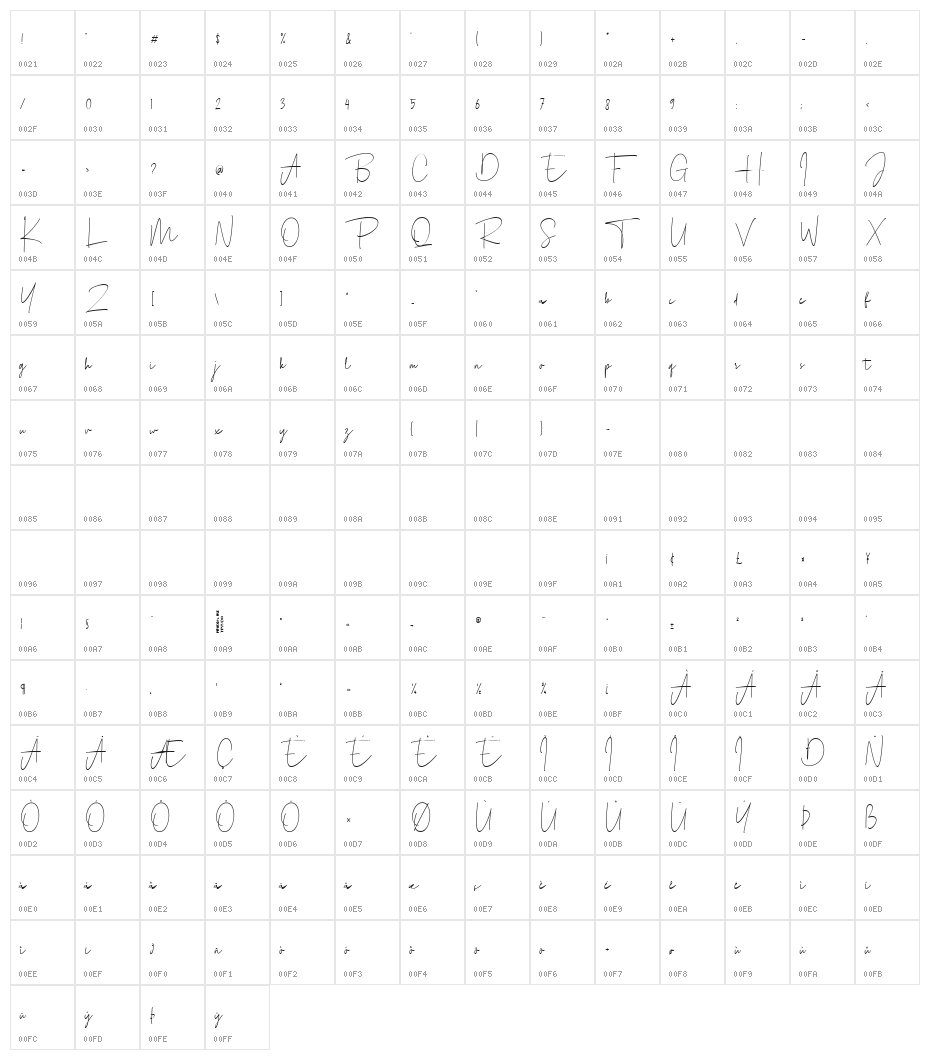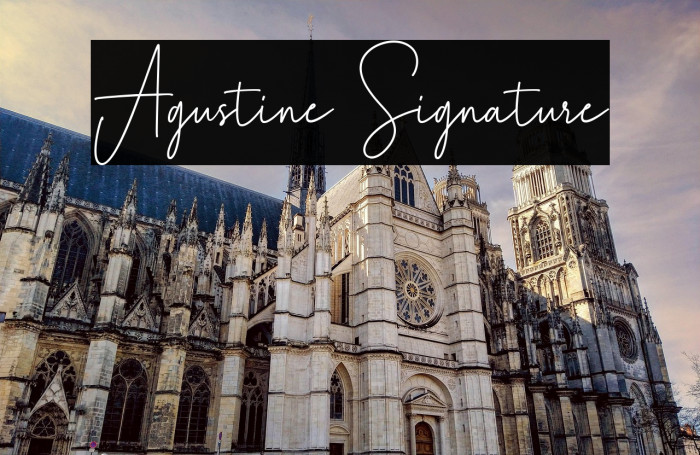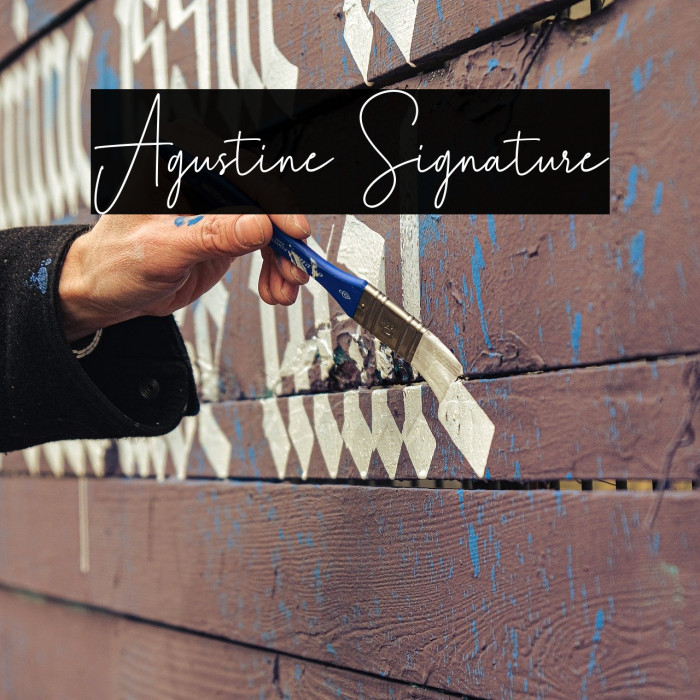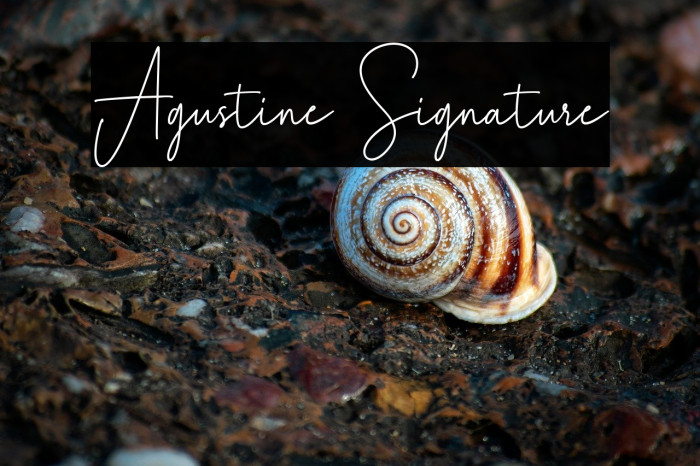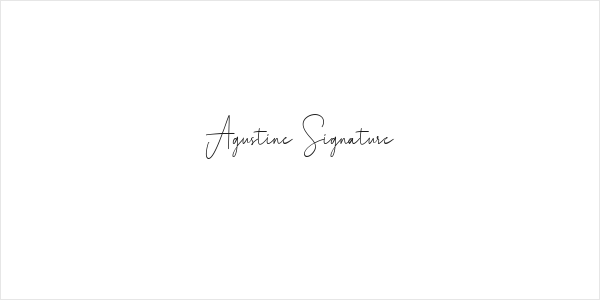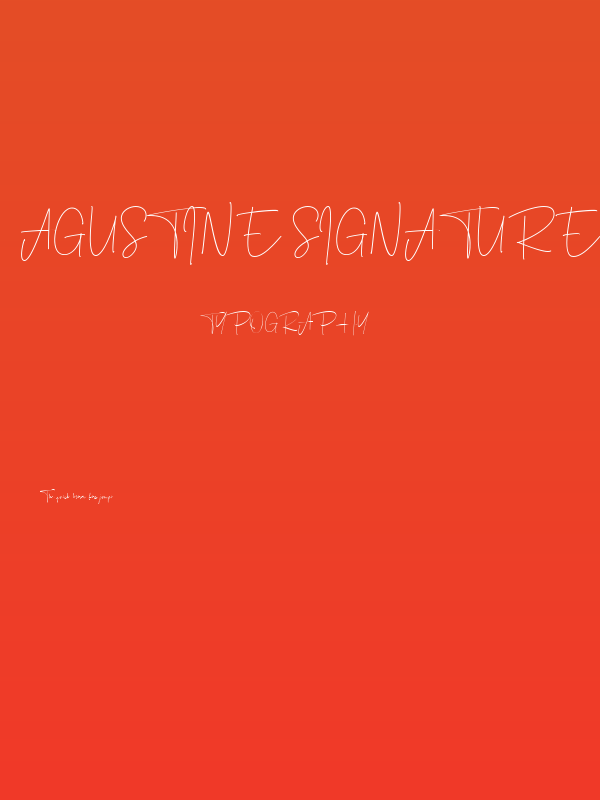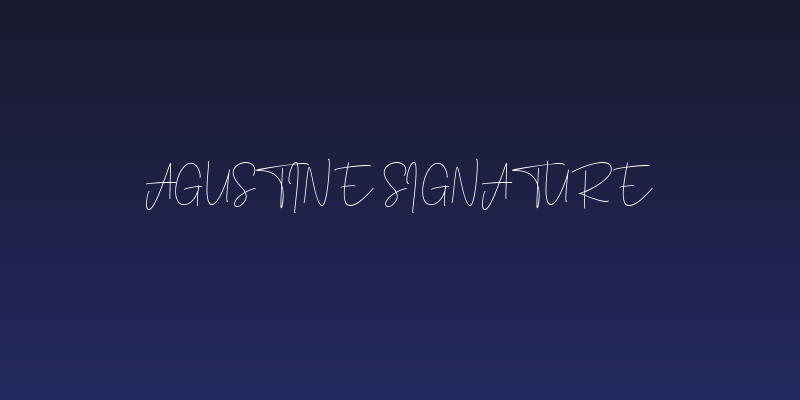
Agustine Signature Font
Agustine Signature Description
A delicate and flowing handwritten script font with a modern and elegant style, featuring thin strokes and a natural, cursive appearance.
| Overall Style | Modern, Elegant |
| Proposed Projects | Invitations, personal branding, social media graphics. |